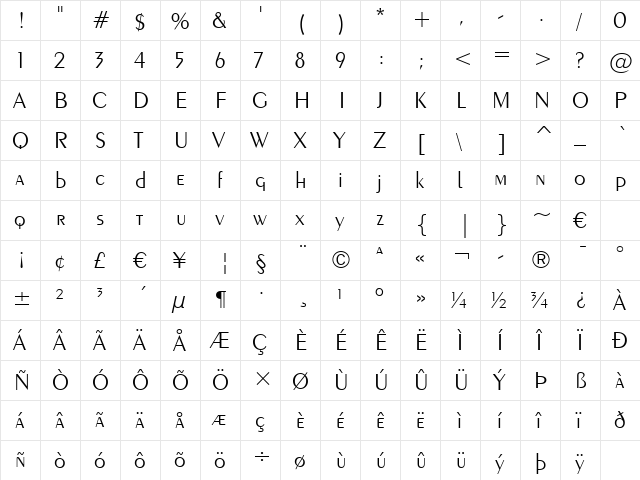
Exotc350 Lt BT Light
Design Context for Exotc350 Lt BT Typeface
Exotc350 Lt BT offers clean, dependable letterforms without strong stylistic allegiance, making it a practical choice for designers who need flexibility. Its slender proportions lend an understated elegance to any composition.